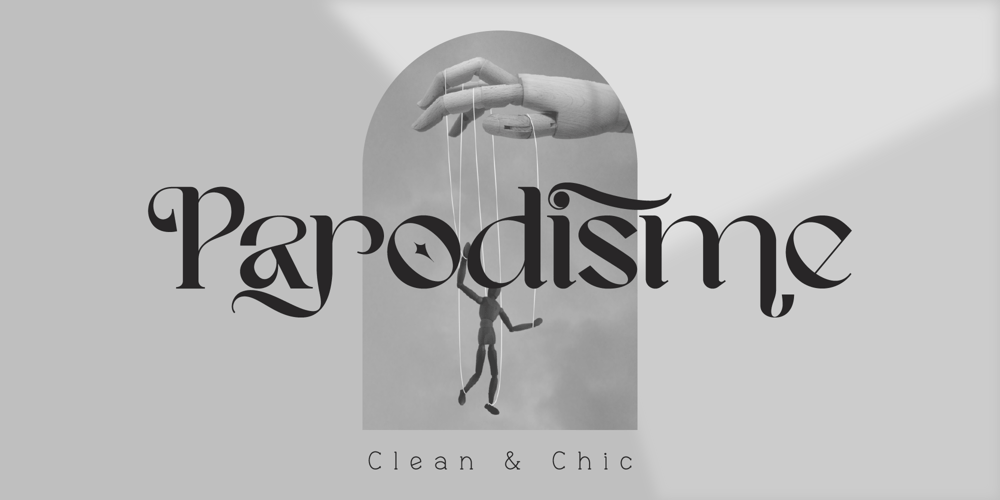
Parodisme
Parodisme Font Family was designed by Irfan Hidayat and published by Creative17studio. Parodisme contains 2 styles and family package options. Parodisme is a high-contrast serif font family that has many alternatives and unique shapes.Create a modern and beautiful logotype using this font family.Supports all aspects of design, especially logo design and branding.Suitable to be paired with various types of fonts.Parodisme also supports multilingual languages.If you have further questions contact me.Free updatesThank you